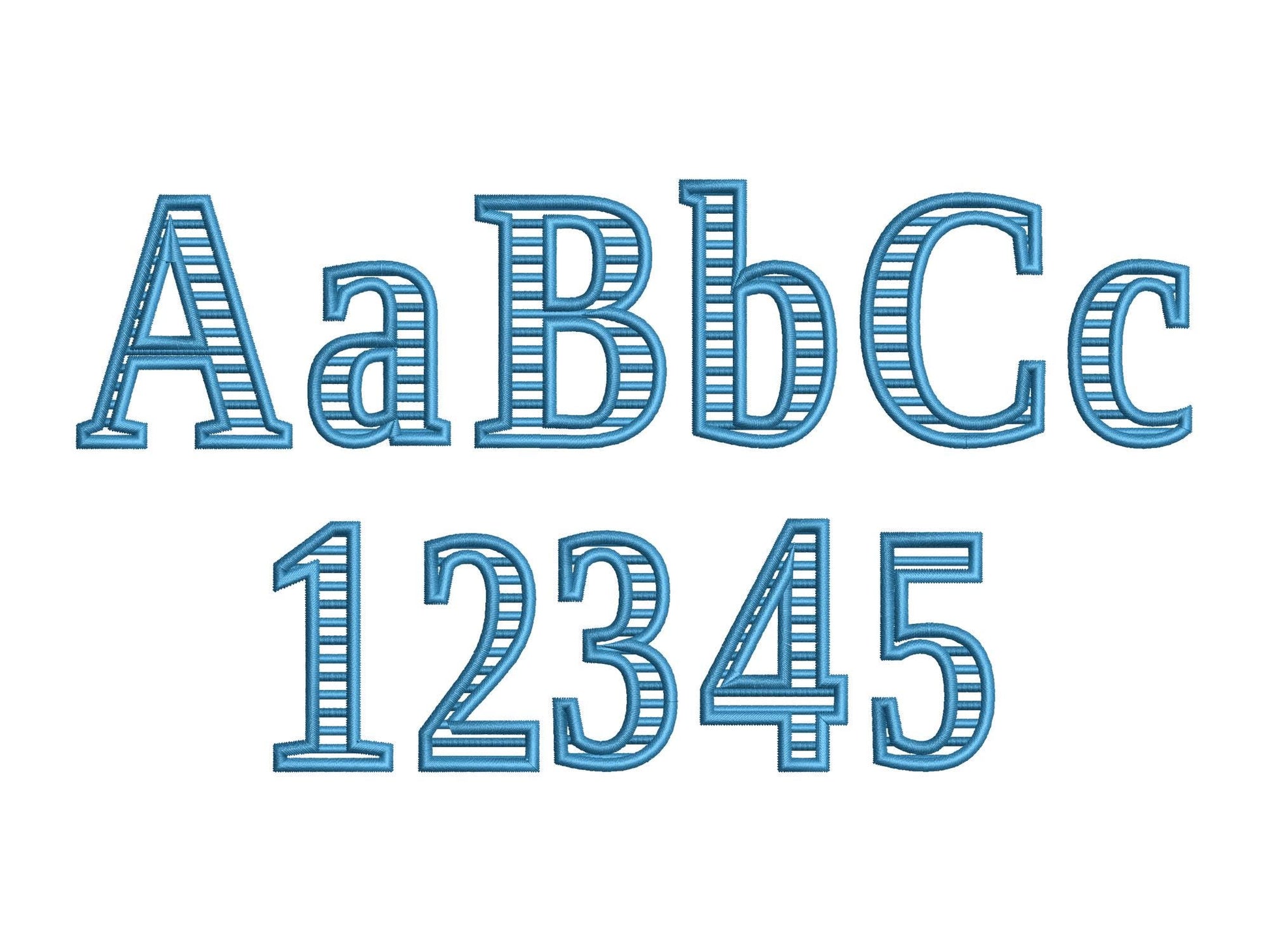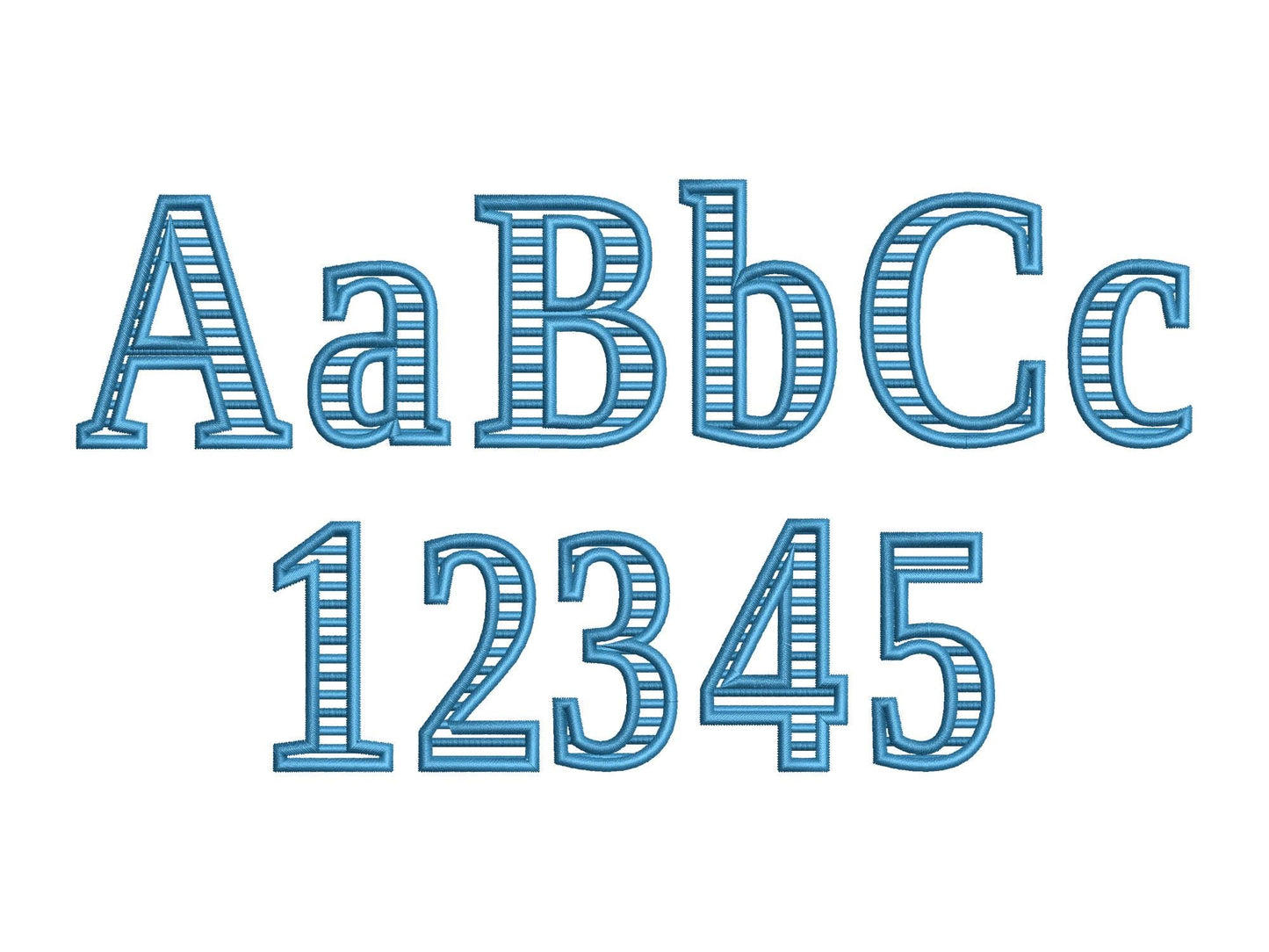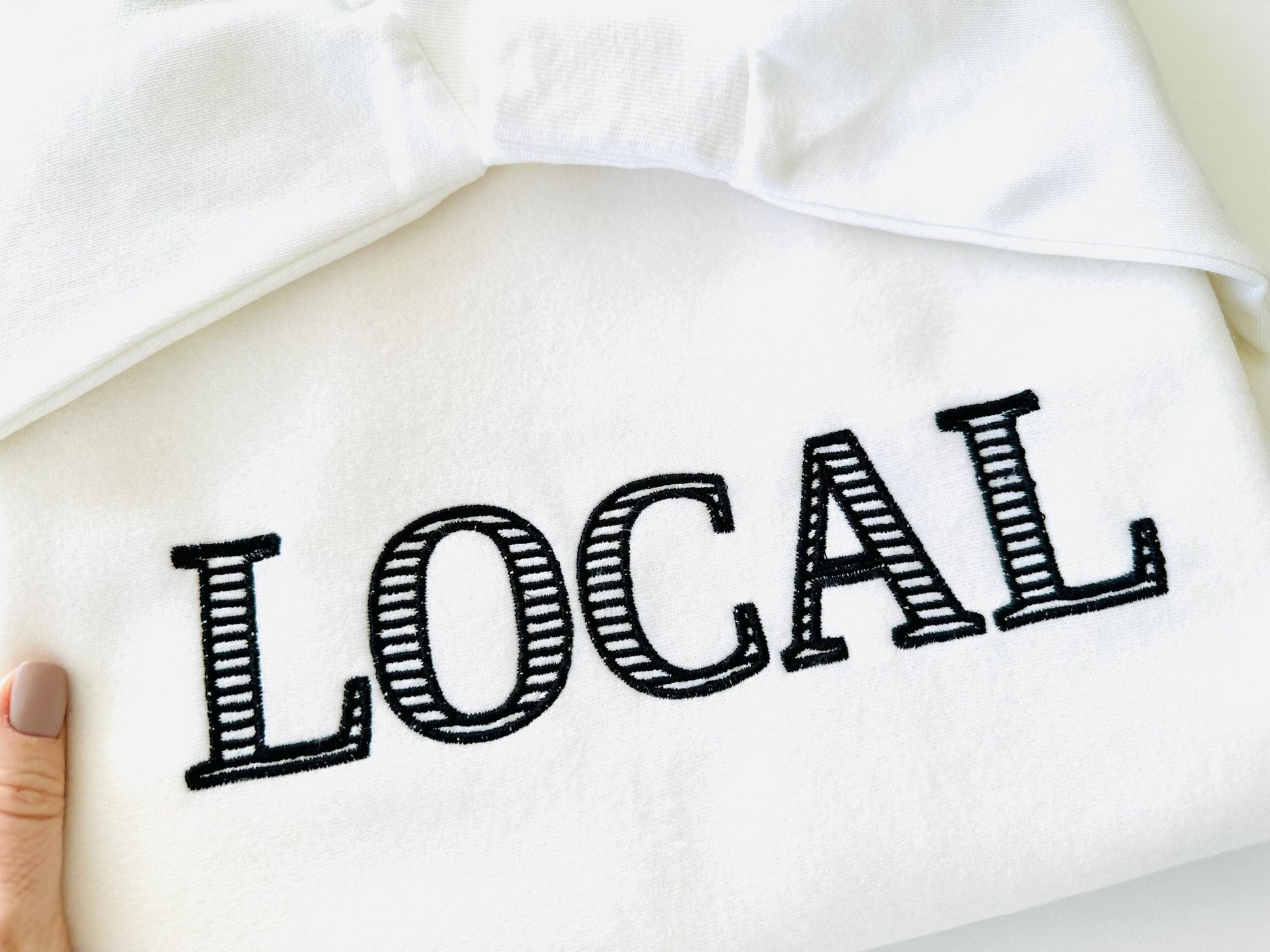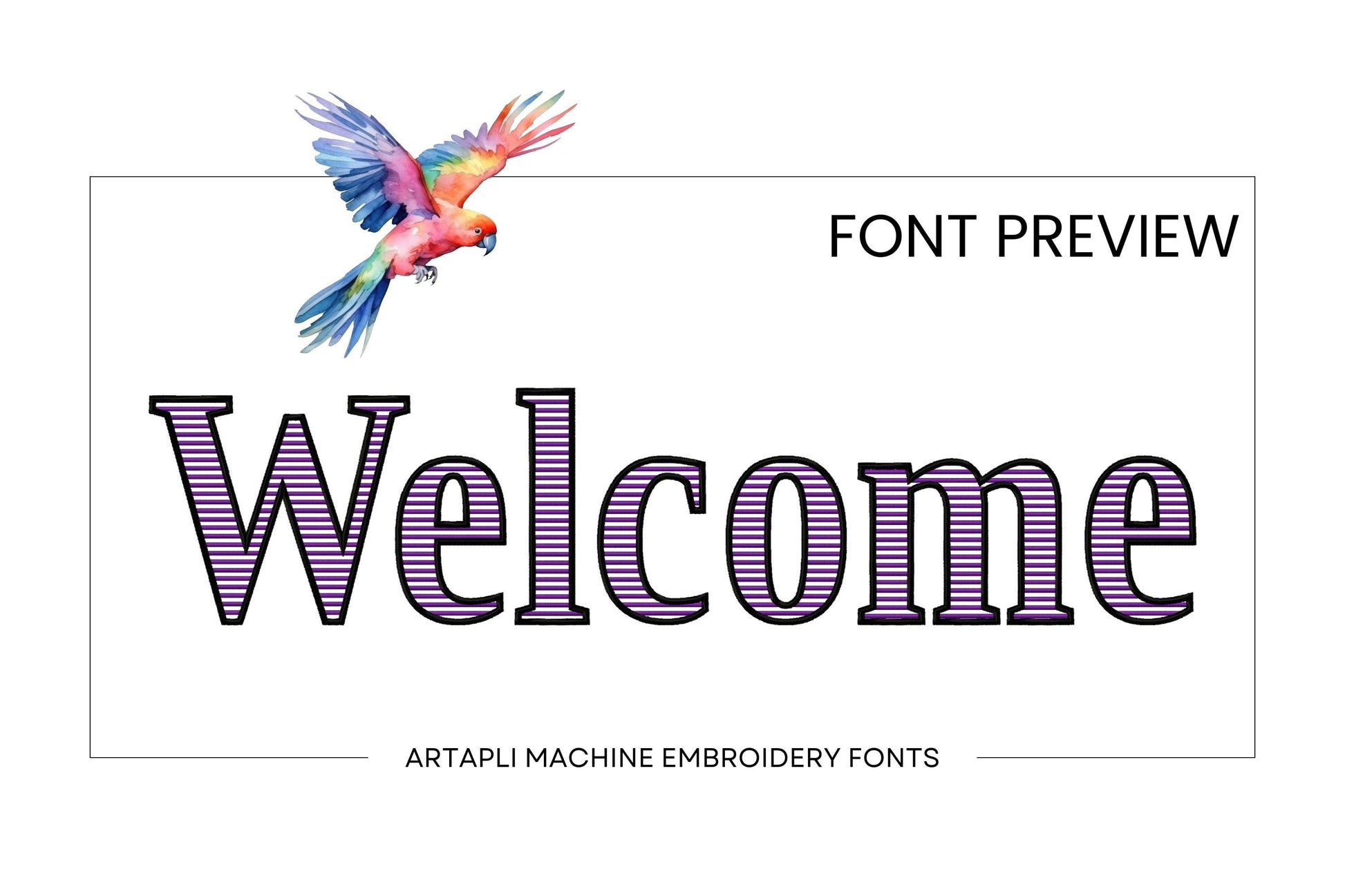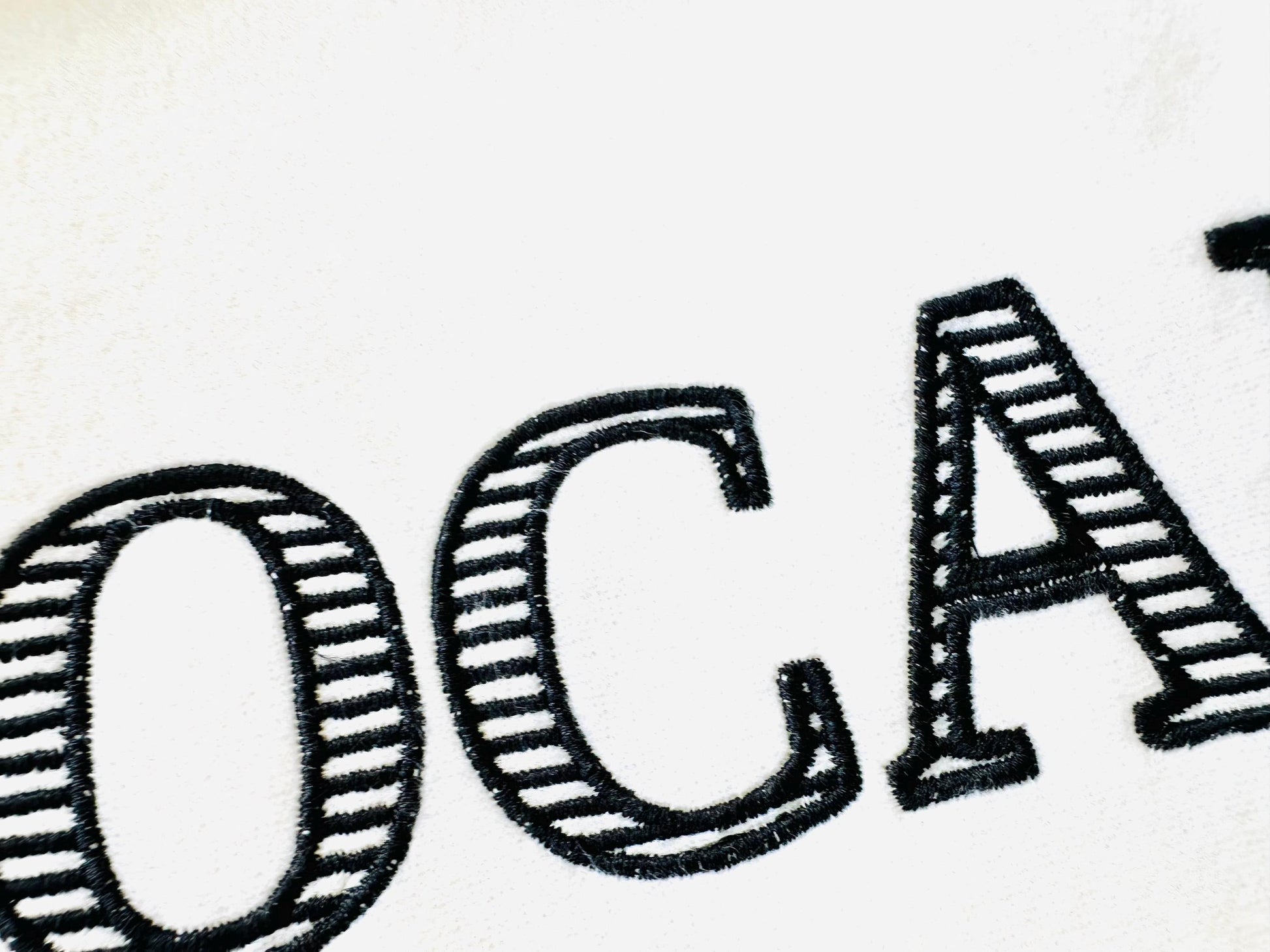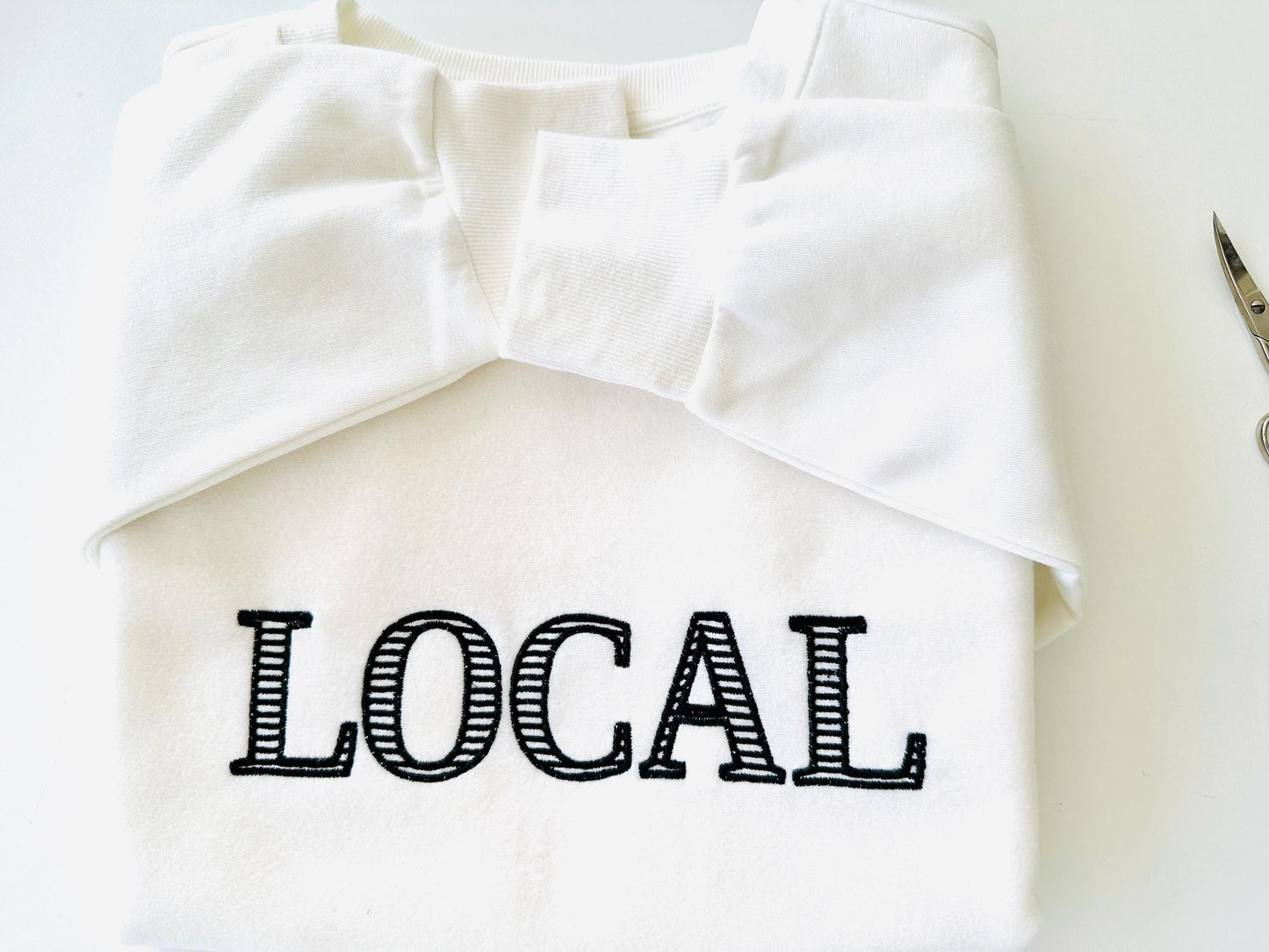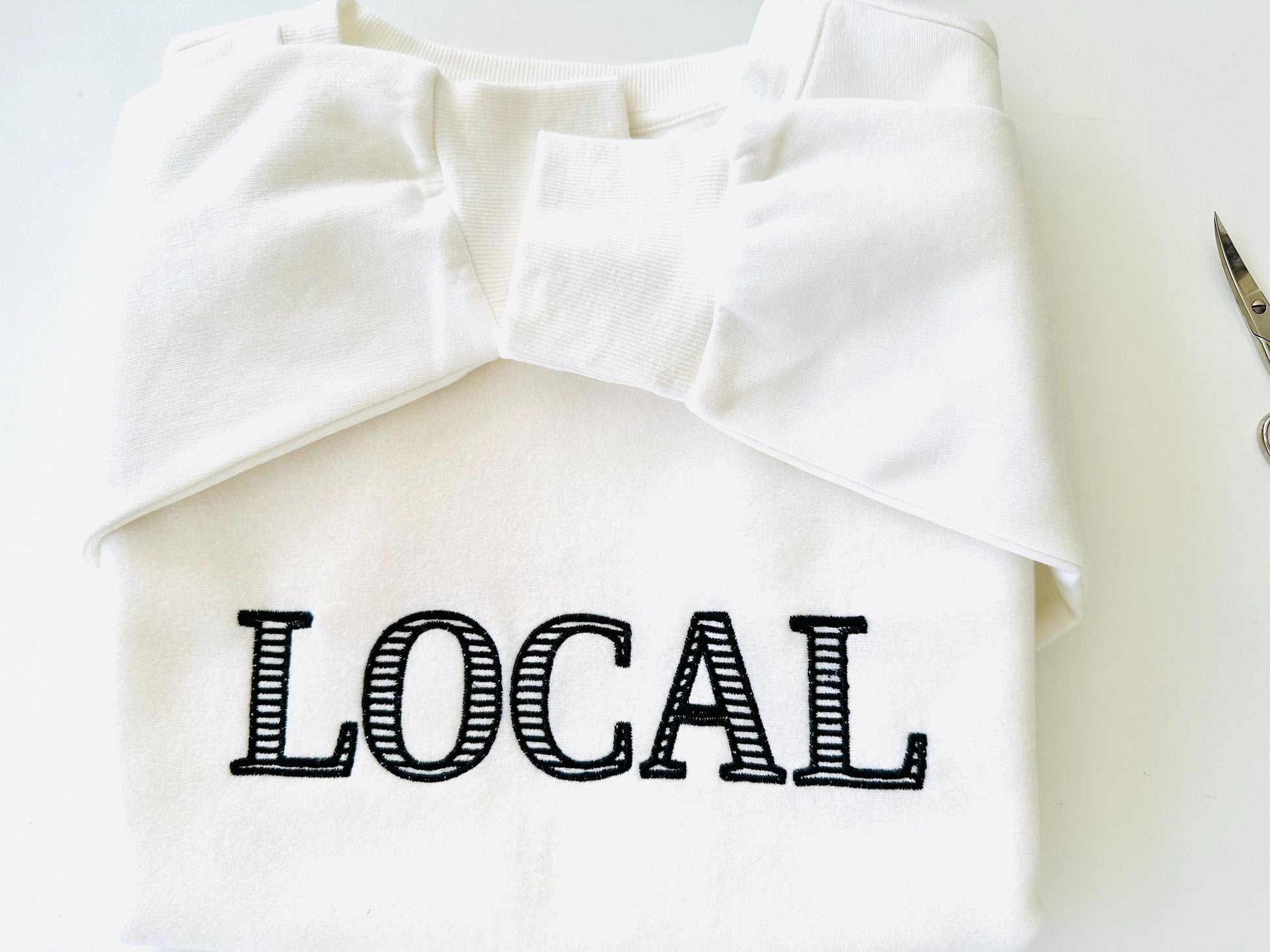
Or click to open the linkA bold block font with satin stripes, so the fabric shows through between them. Great for monograms, shirts, pillows and tote bags.
Uppercase and lowercase letters, numbers 0 to 9 and punctuation, in two sizes: 3.8 and 4.2 inches. Striped satin stitching leaves the letters see-through, for a striking look on any fabric.